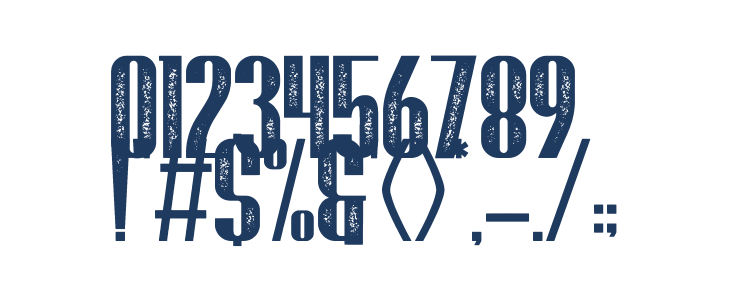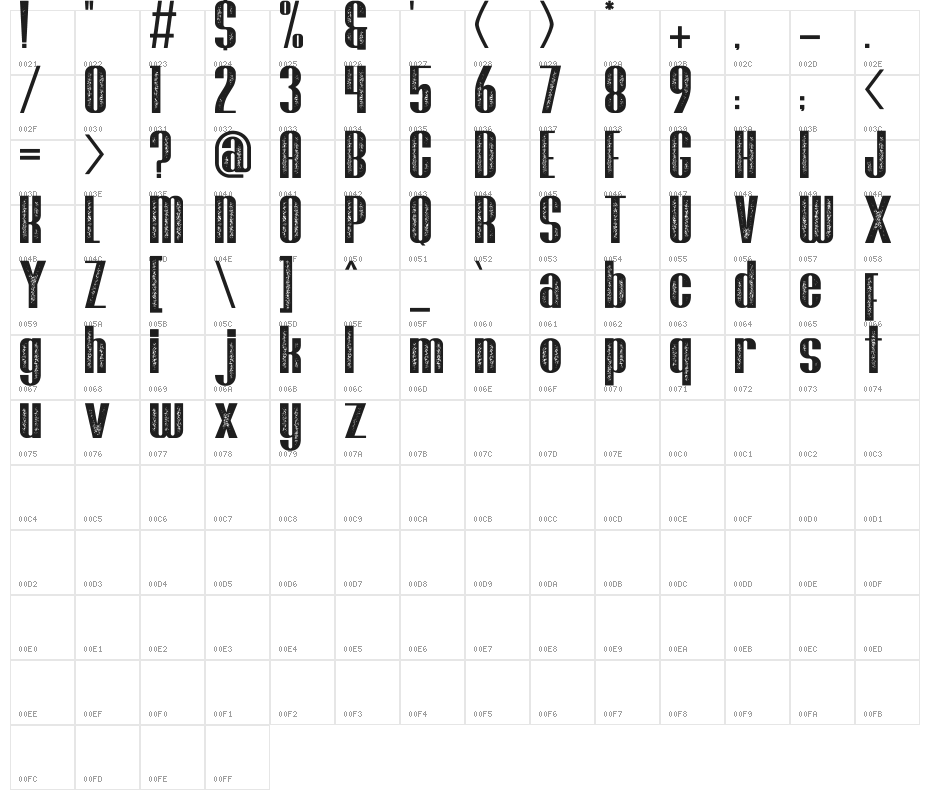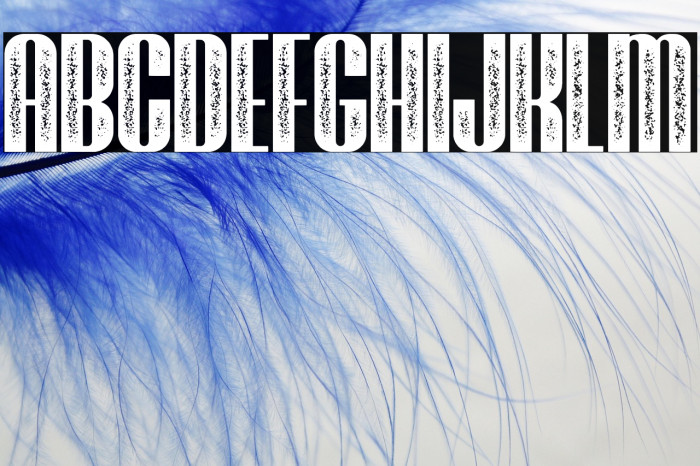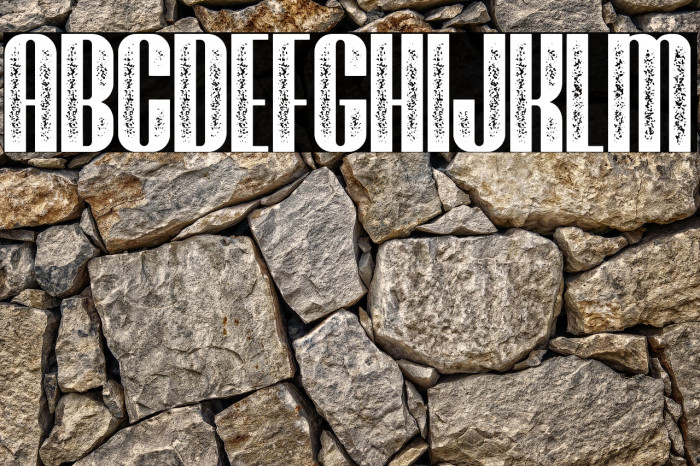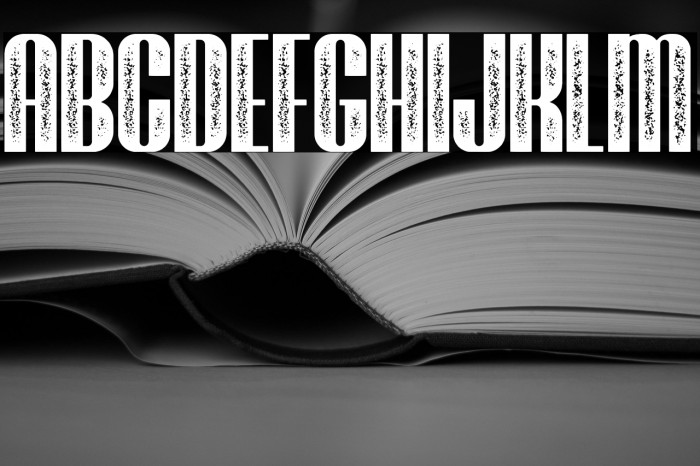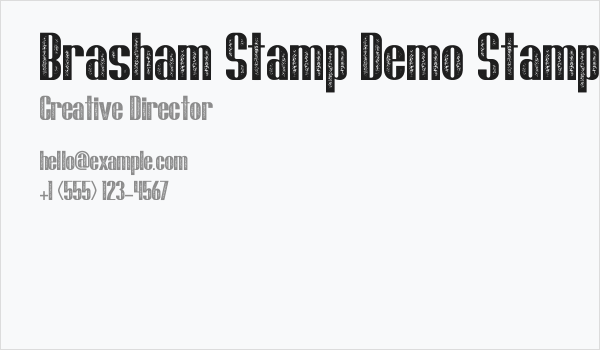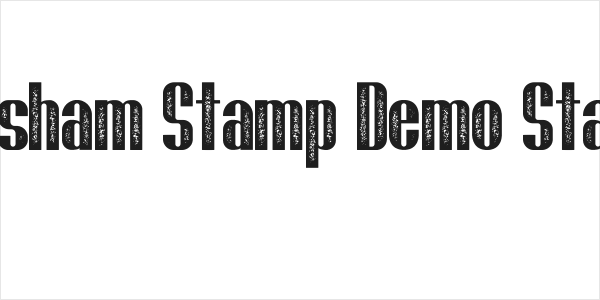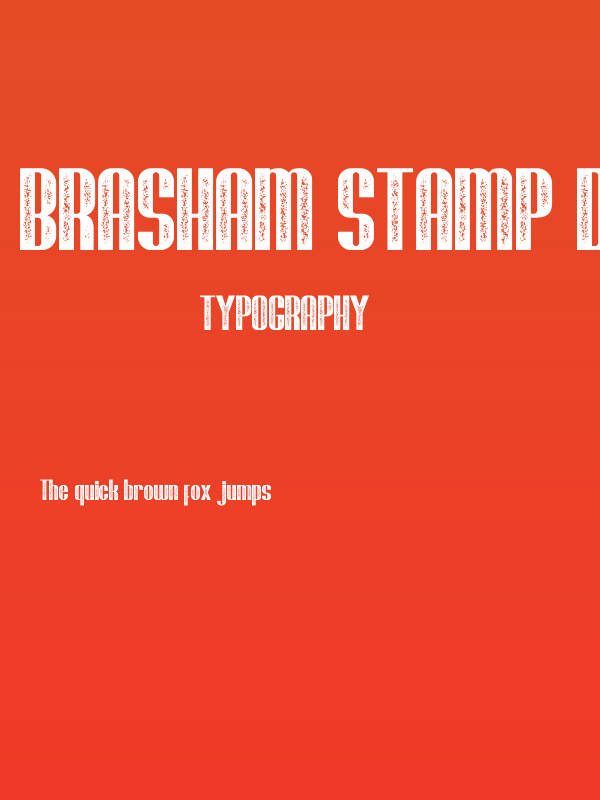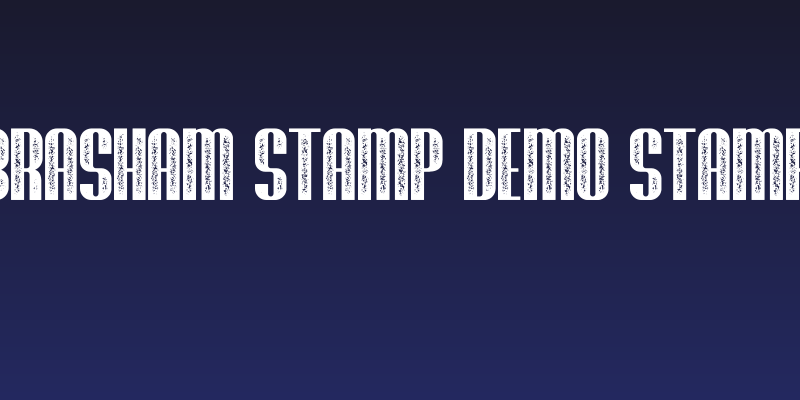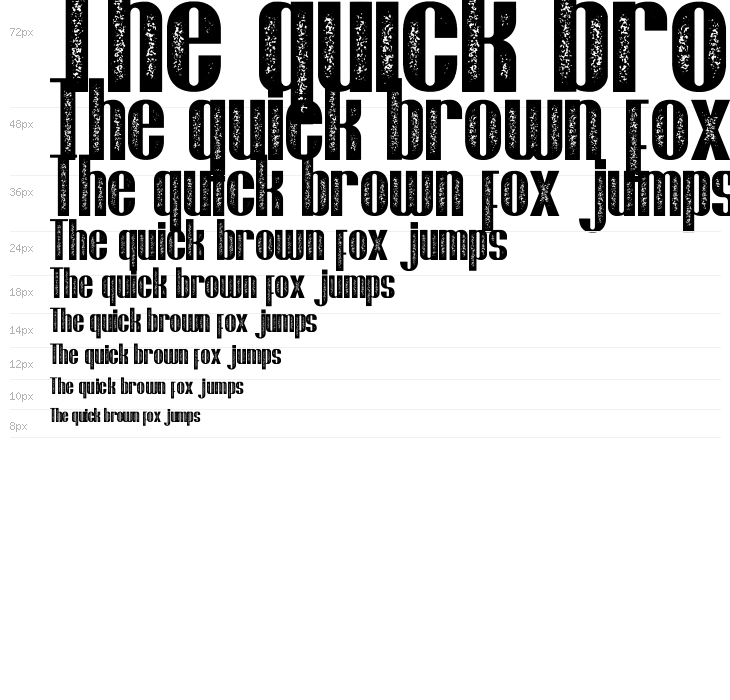
Brasham Stamp Demo Stamp Font
Brasham Stamp Demo Stamp Description
This font features a bold and striking design with a distressed, textured appearance reminiscent of a vintage rubber stamp. The characters are tall and narrow, with a strong vertical emphasis and minimal contrast between thick and thin strokes. The rough, weathered texture adds a unique, handcrafted feel, making it ideal for projects that require a retro or industrial aesthetic. The uppercase and lowercase letters maintain consistent proportions, while the numerals and special characters are equally bold and impactful. This font's distinctive style is perfect for creating eye-catching headlines, posters, and branding materials that demand attention.